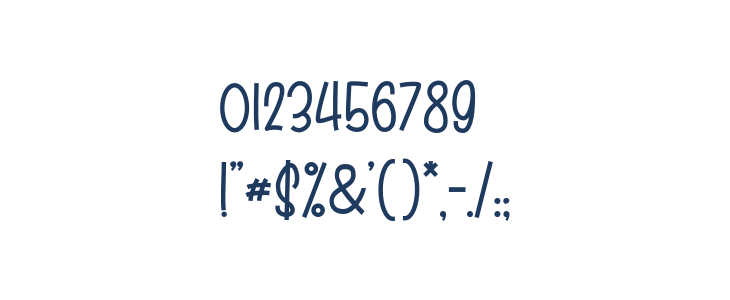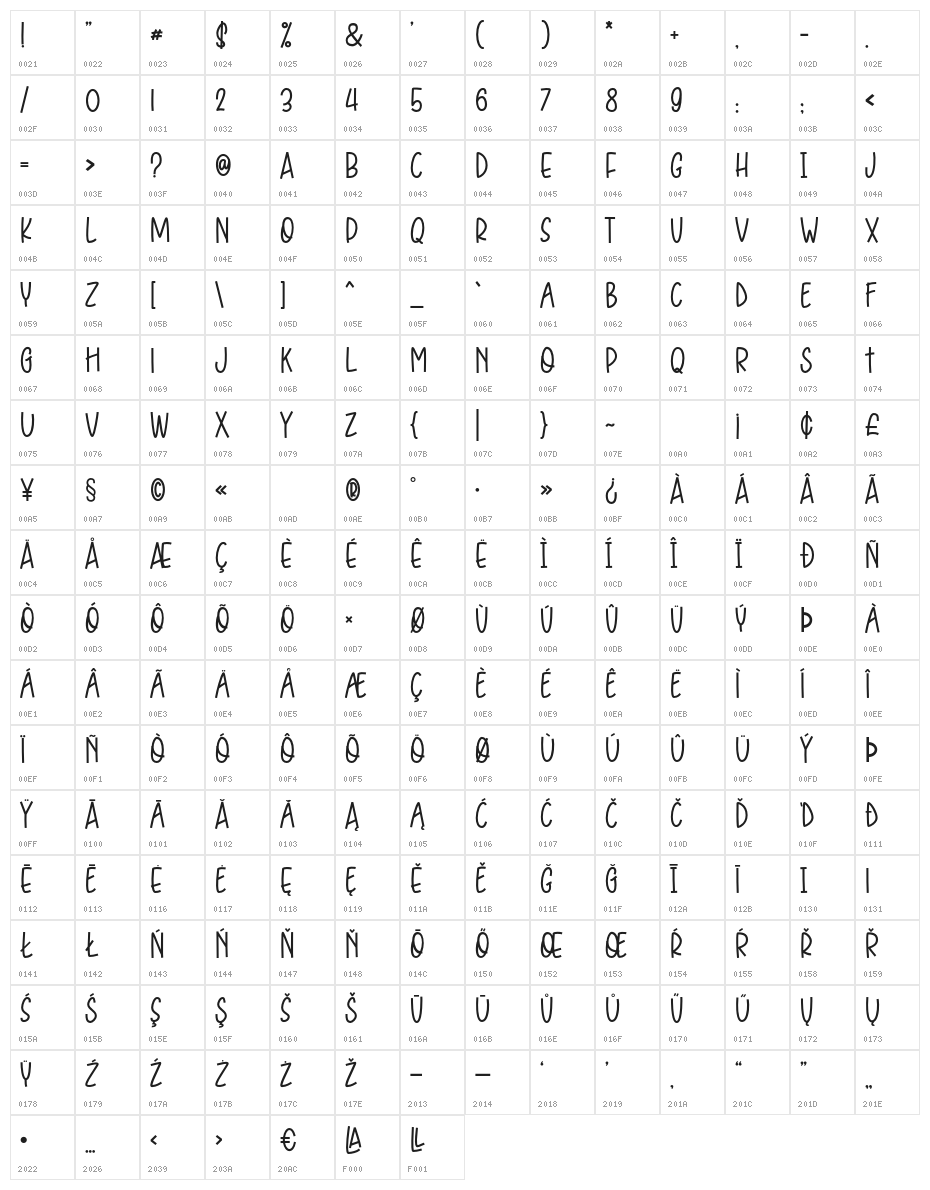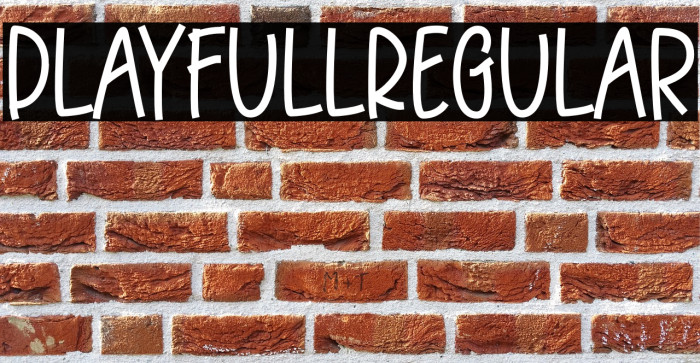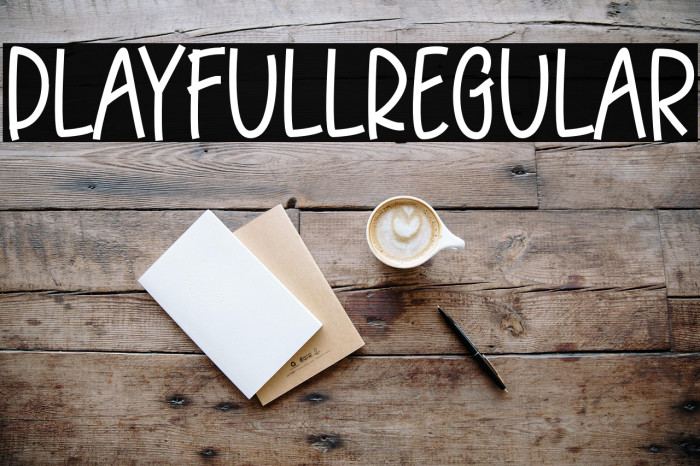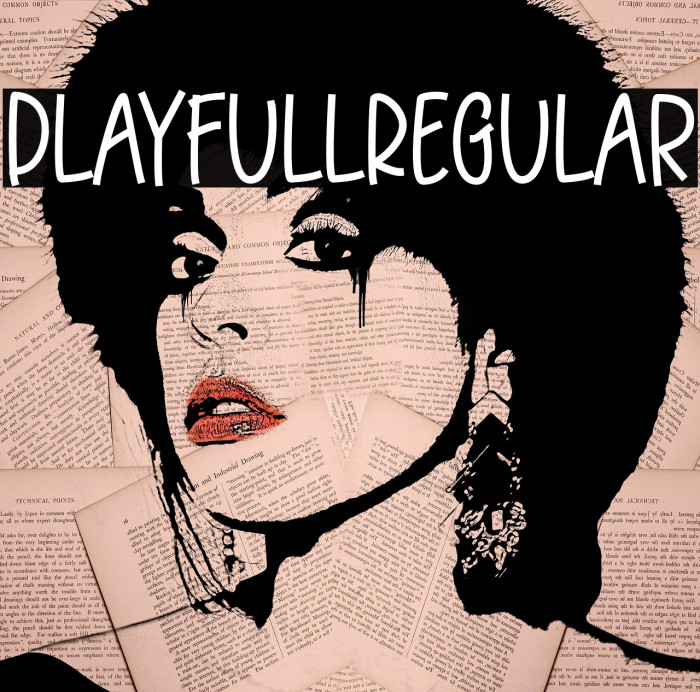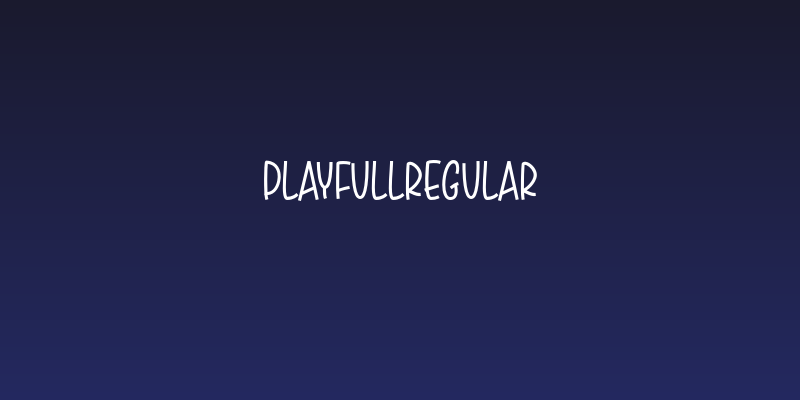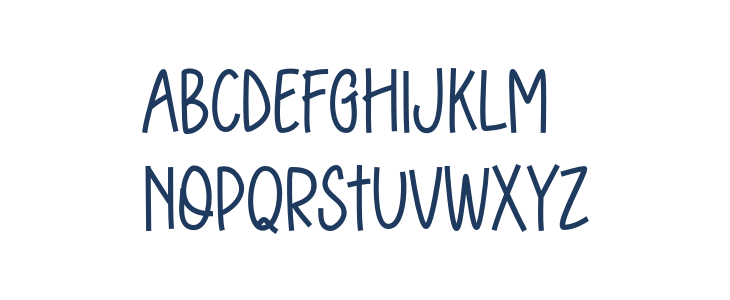
PlayfullRegular Font
PlayfullRegular Description
This font exudes a playful and casual vibe, characterized by its handwritten style. The letters are slightly irregular, giving it a whimsical and friendly appearance. The strokes are consistent in width, providing a uniform look across all characters. The uppercase and lowercase letters maintain a cohesive style, with rounded edges and a slight tilt that adds to its informal charm. The numerals and special characters follow the same playful design, making it versatile for various creative projects. Its overall appearance is approachable and fun, making it suitable for designs that aim to convey warmth and friendliness.
| Use Case | Headlines, Logos, Casual text |
| Proposed Projects | Ideal for children's books, greeting cards, playful branding, and casual invitations. |